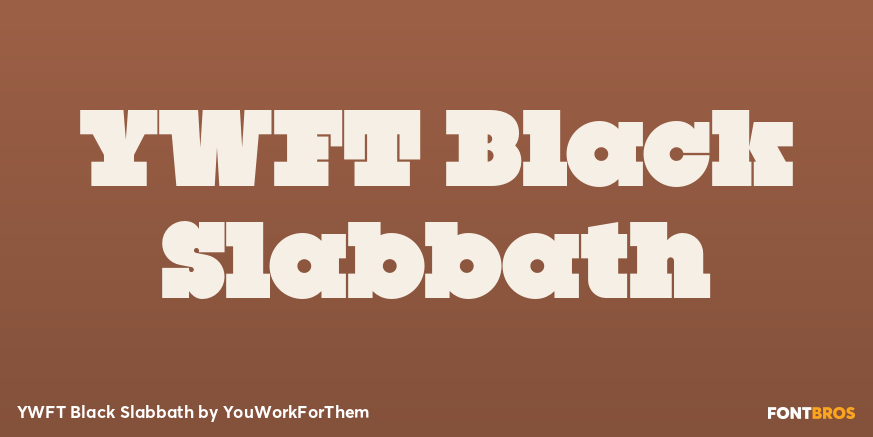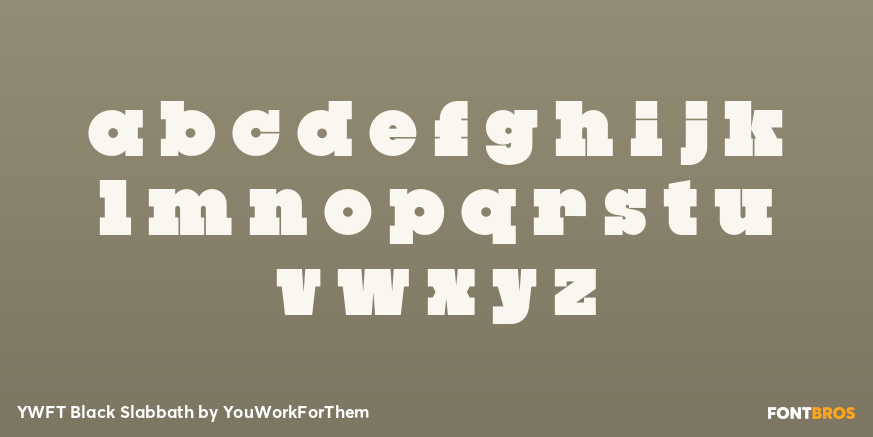
YWFT Black Slabbath
Font Family by YouWorkForThem
The heaviest typeface in the world, Black Slabbath. There's only one thing about this new typeface that isn't colossally black: the razor-thin white space. It slices through and between geometric characters, creating a juxtaposition of contrasts and rhythms. Black Slabbath is delivered in OpenType format.
Already being used by a number of hot companies and design firms, Black Slabbath makes any text look delicious. This colossally black typeface is the next big thing, with stylish geometric characters that create a juxtaposition of contrasts and rhythms. Black Slabbath also takes advantage of the innovative OpenType format and includes ligatures and alternates.
Black Slabbath is the brainchild of graphic designer Stefan Kjartansson, YouWorkForThem commissioned the typeface, nursing the development of its painstaking drawing, kerning, and spacing to perfection over six months in 2007-2008.